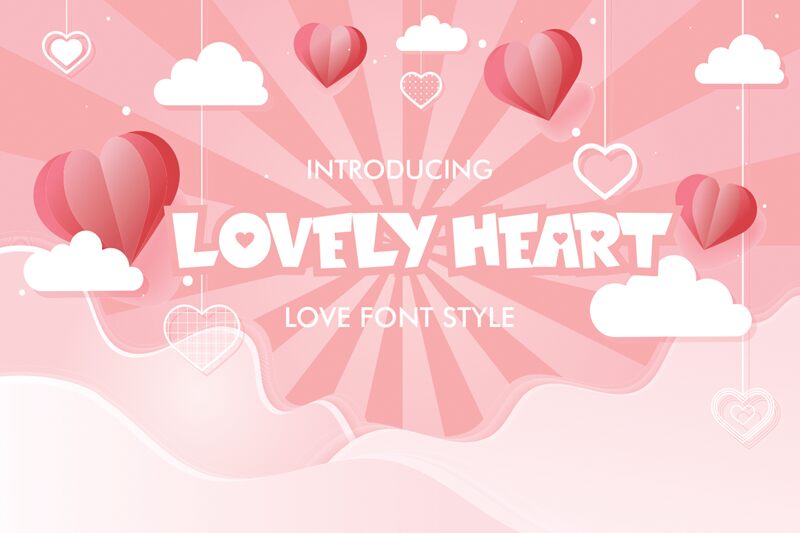
LOVELY HEART
Lovely Heart, crafted by designer Fachranheit, is a captivating display font that exudes a whimsical, romantic charm. With its bold, playful strokes and heart-shaped terminals, this font radiates a sense of warmth and affection. The comic-inspired aesthetic, accentuated by the rounded edges and distinctive letter forms, creates a visually engaging and charming typographic experience.
This versatile font lends itself seamlessly to a variety of design applications, particularly those with a focus on love, relationships, or Valentine's Day-themed projects. Its bold and vibrant presence makes it an ideal choice for branding, event invitations, social media graphics, and more. The Lovely Heart font's ability to capture the essence of love and sentiment ensures its versatility across a range of creative endeavors.